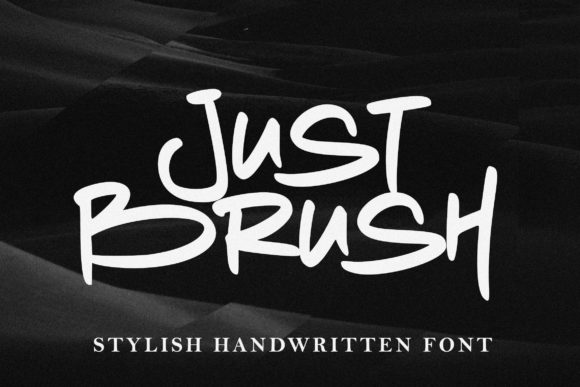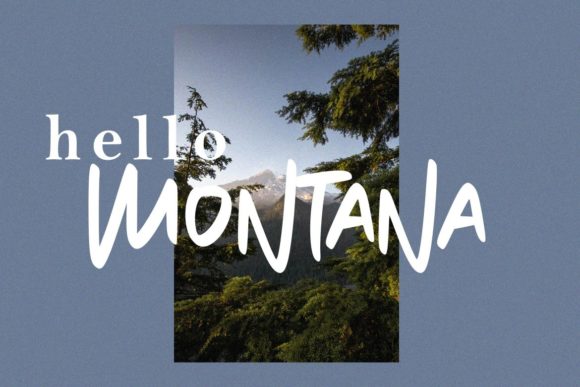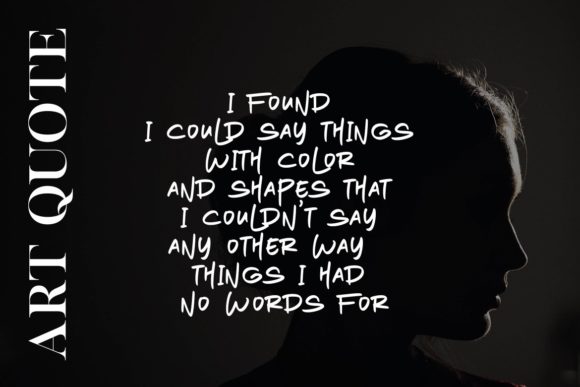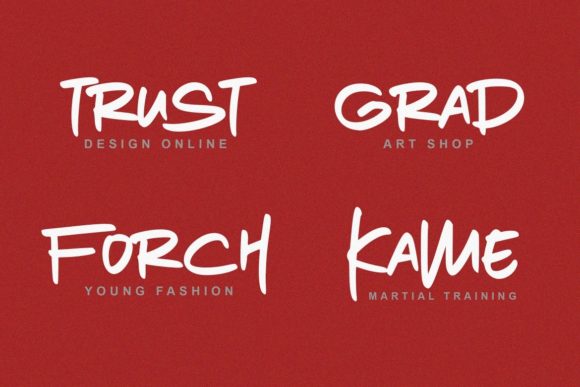
Just Brush Font: Cool Handwritten Typography for Cricut & DIY Designs
About the Just Brush Font
Meet Just Brush Font, a stunning font that brings a touch of elegance and professionalism to any design. Just Brush is a cool, graffiti styled handwritten font. This font is suitable for designs such as t-shirts, sportswear, logos, advertisements, clothing, and more.
Its bold, slightly rebellious personality makes it ideal for headlines, short impactful taglines, and branding projects targeting a younger, more energetic demographic. It works exceptionally well for streetwear apparel designs, posters promoting music events, or logos for edgy brands. Avoid using it for body text or UI elements; the informal style is illegible at smaller sizes and unsuitable for extended reading.
Pairing Just Brush with a clean sans-serif like Open Sans for body copy creates a strong visual contrast, balancing the hand-drawn informality with a professional, readable element. Alternatively, a geometric sans-serif could add a modern edge, while a classic serif could lend a touch of unexpected sophistication. Consider pairing with a script font for logos or branding where a more luxurious, slightly rebellious feel is desired.
In short, Just Brush is best suited for projects that demand a strong, expressive visual voice, where its hand-painted energy and bold attitude can shine.
Just Brush Font Usage Examples
Just Brush Font Example